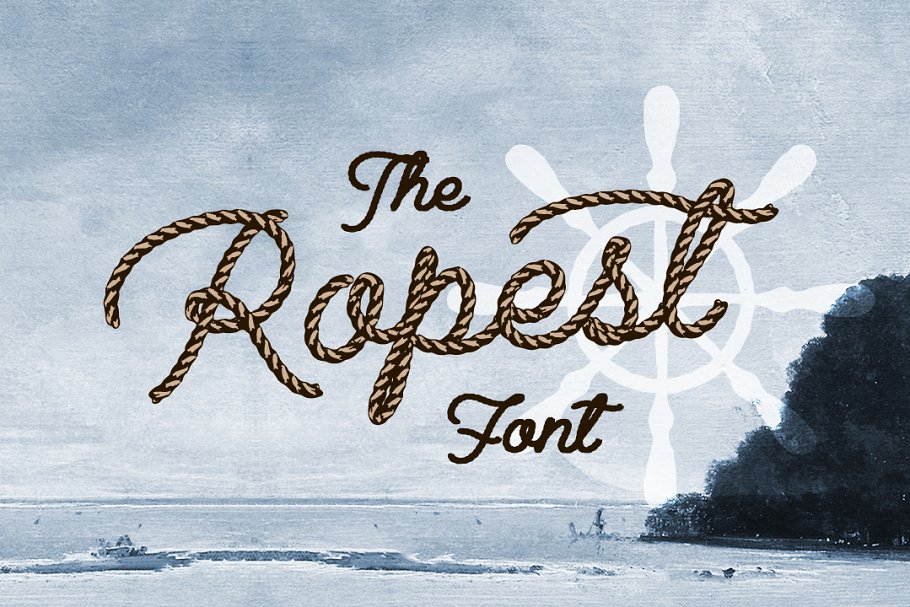
Introducing Ropest - Decorative Font, the latest addition to our stunning font collection. Designed by the world-renowned Måns Grebäck in 2018, Ropest is a font that boasts a unique combination of elegance and boldness.
As a decorative script typeface, Ropest offers the same quality as any cursive font, but with a twist. It is a brave display typeface that stands out from the crowd and commands attention. With its intricate rope-like appearance, it is perfect for creating eye-catching headlines, logos, and branding materials that will leave a lasting impression on your audience.
The Ropest font family comes in two styles. The primary style features the real rope appearance, which is perfect for creating a rustic and natural feel. The secondary style, Black or solid, can be used by itself or as a background to the rope font, allowing for even more creative flexibility.
Ropest also includes ligatures and support for all Latin-based European languages, making it versatile and suitable for a wide range of design projects. Whether you're designing a website, creating a marketing campaign, or designing a print project, Ropest is the perfect font to help you stand out from the crowd.